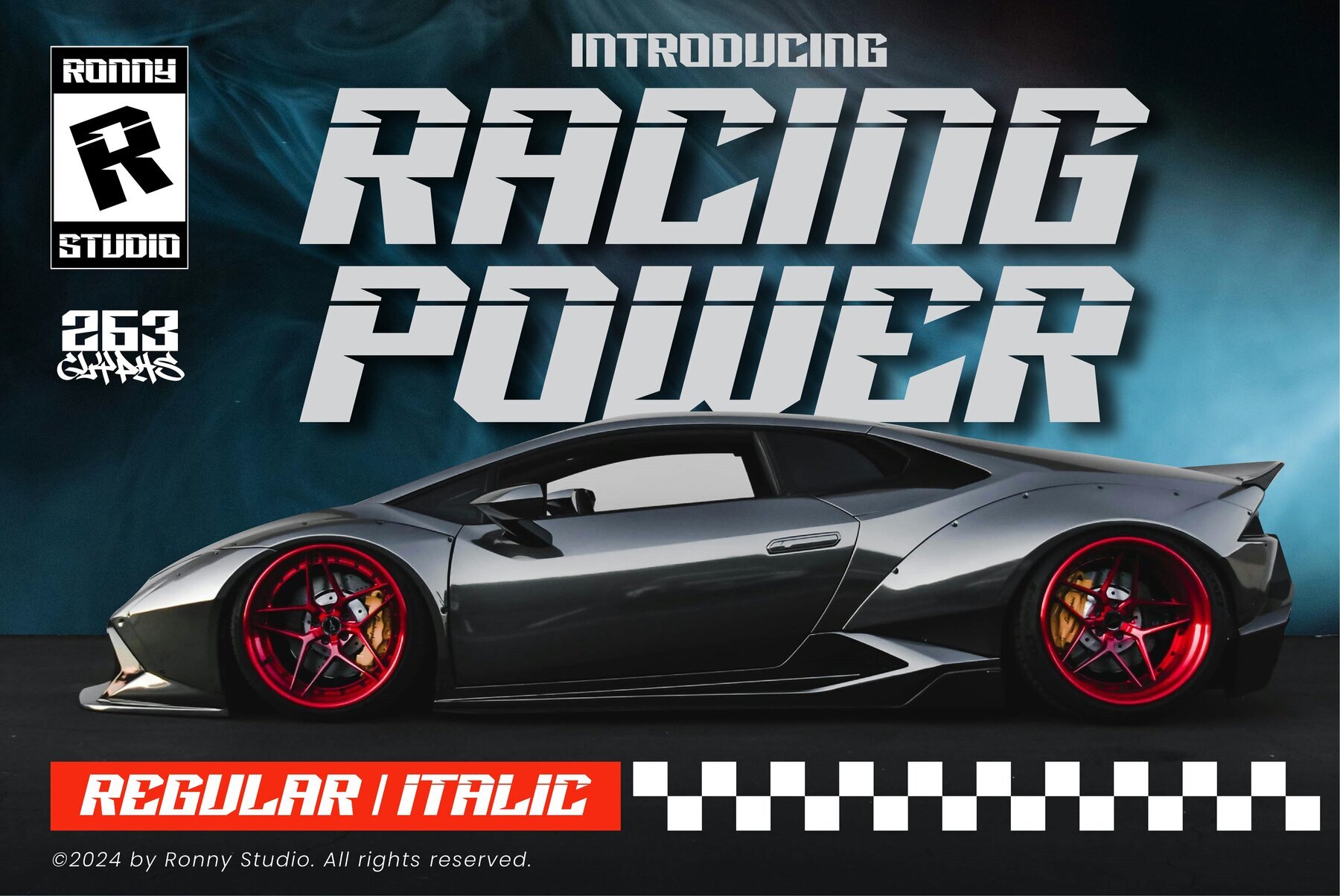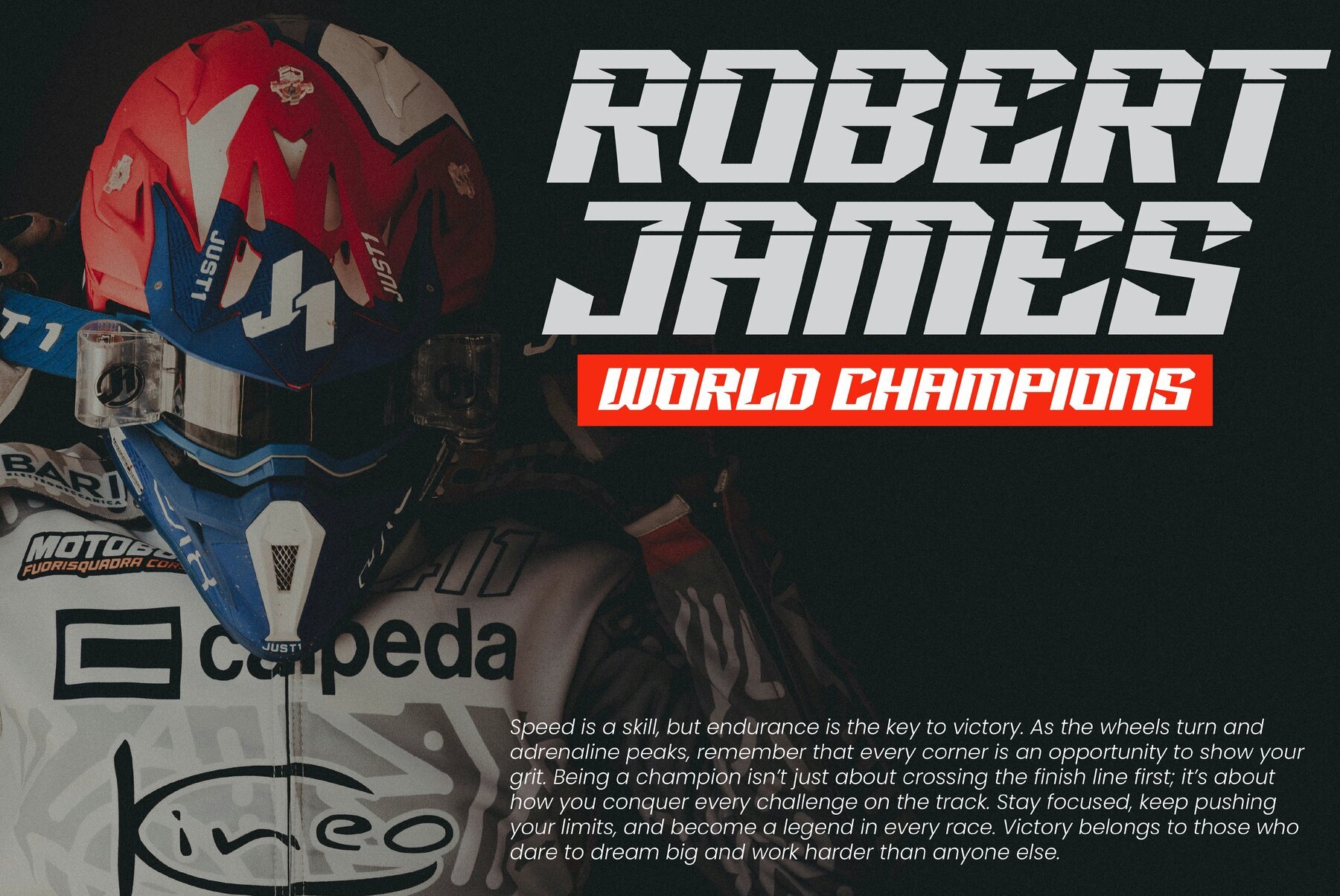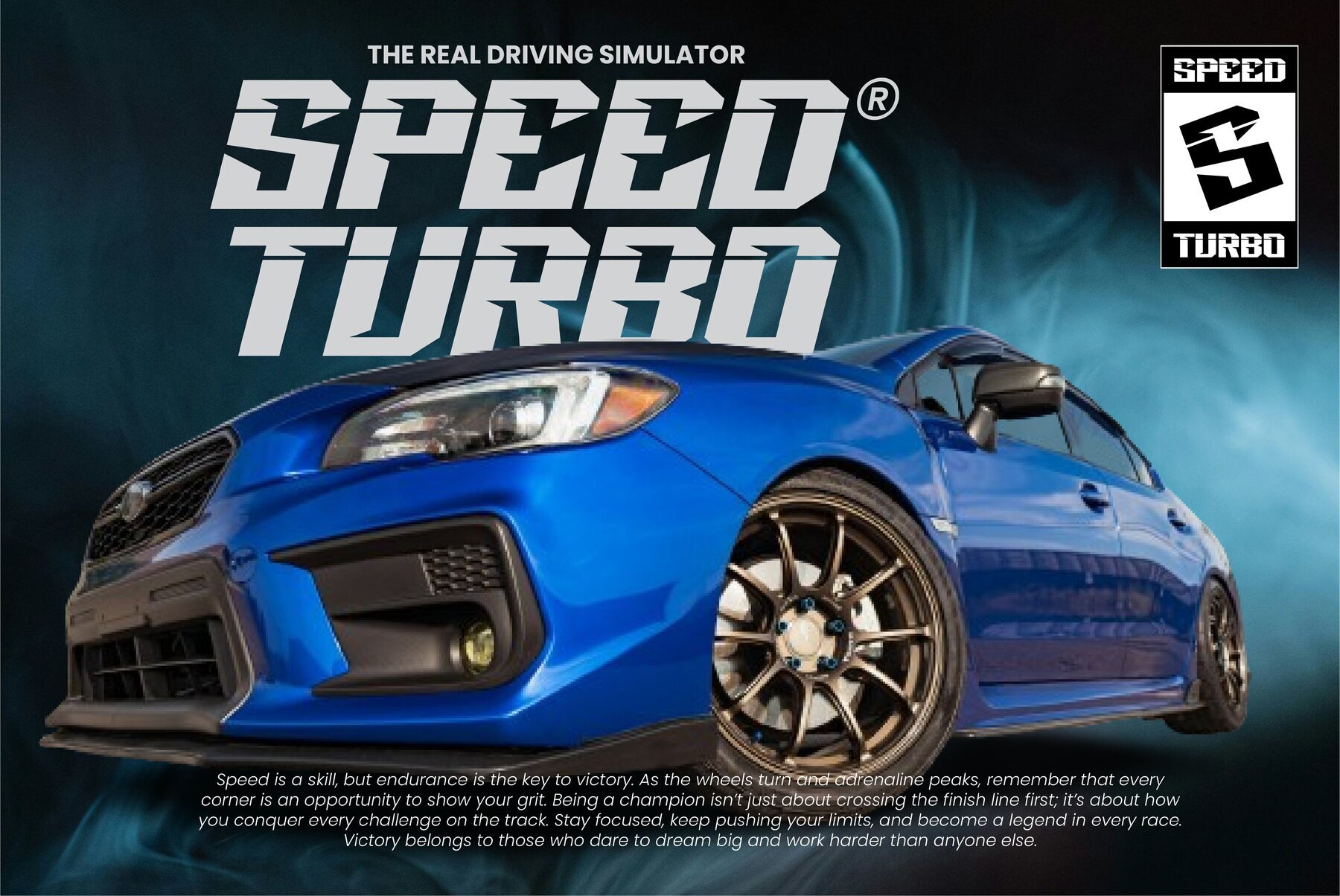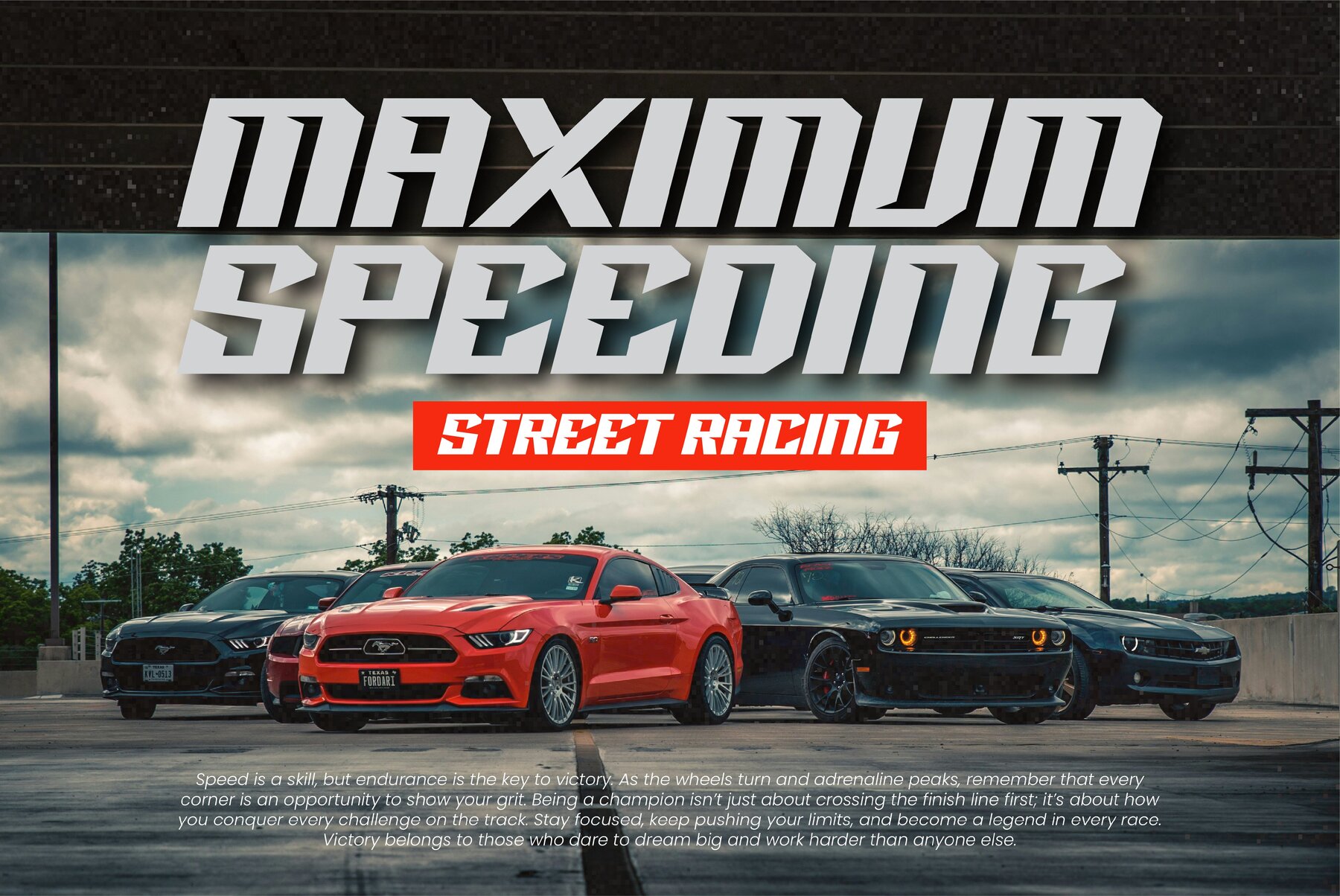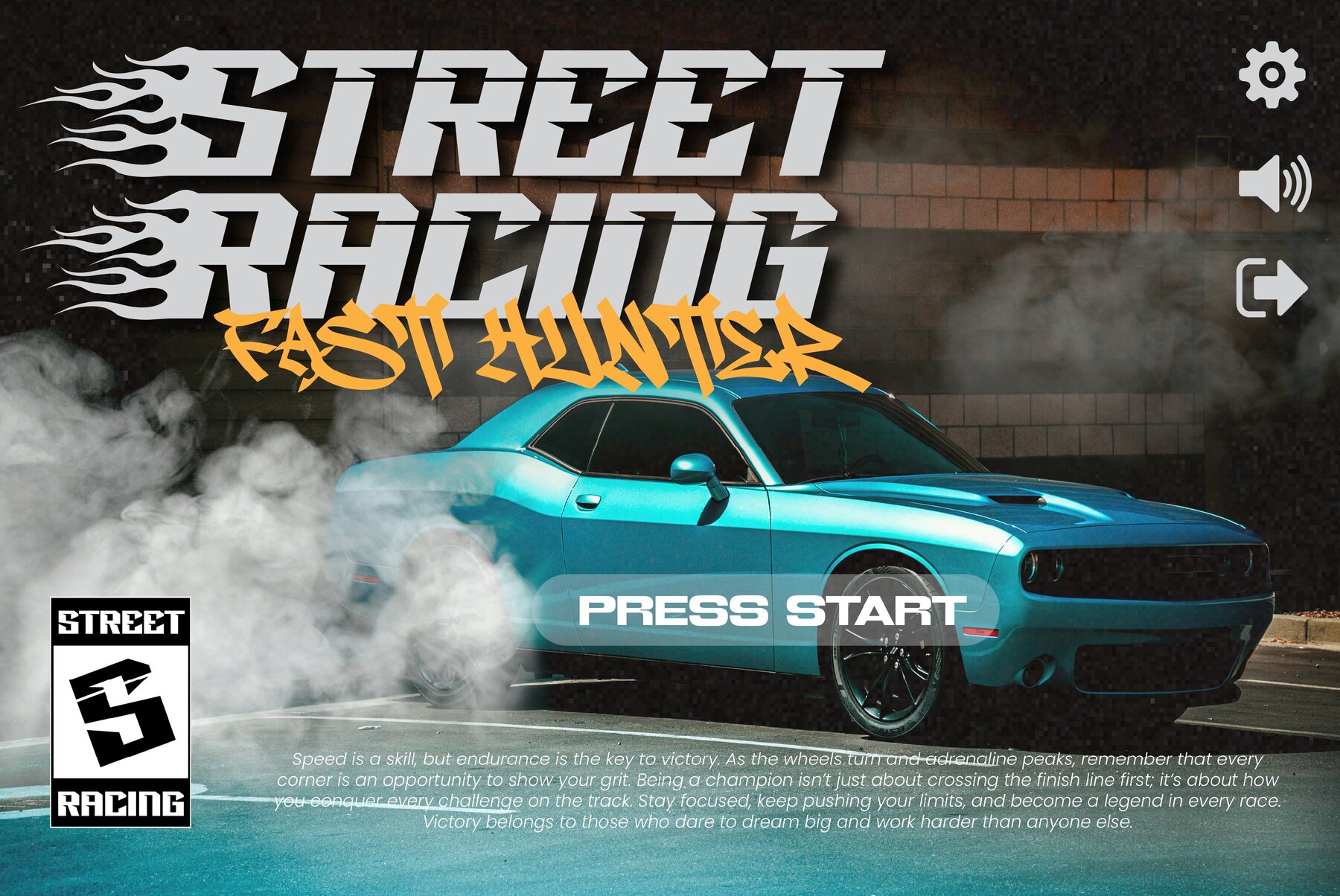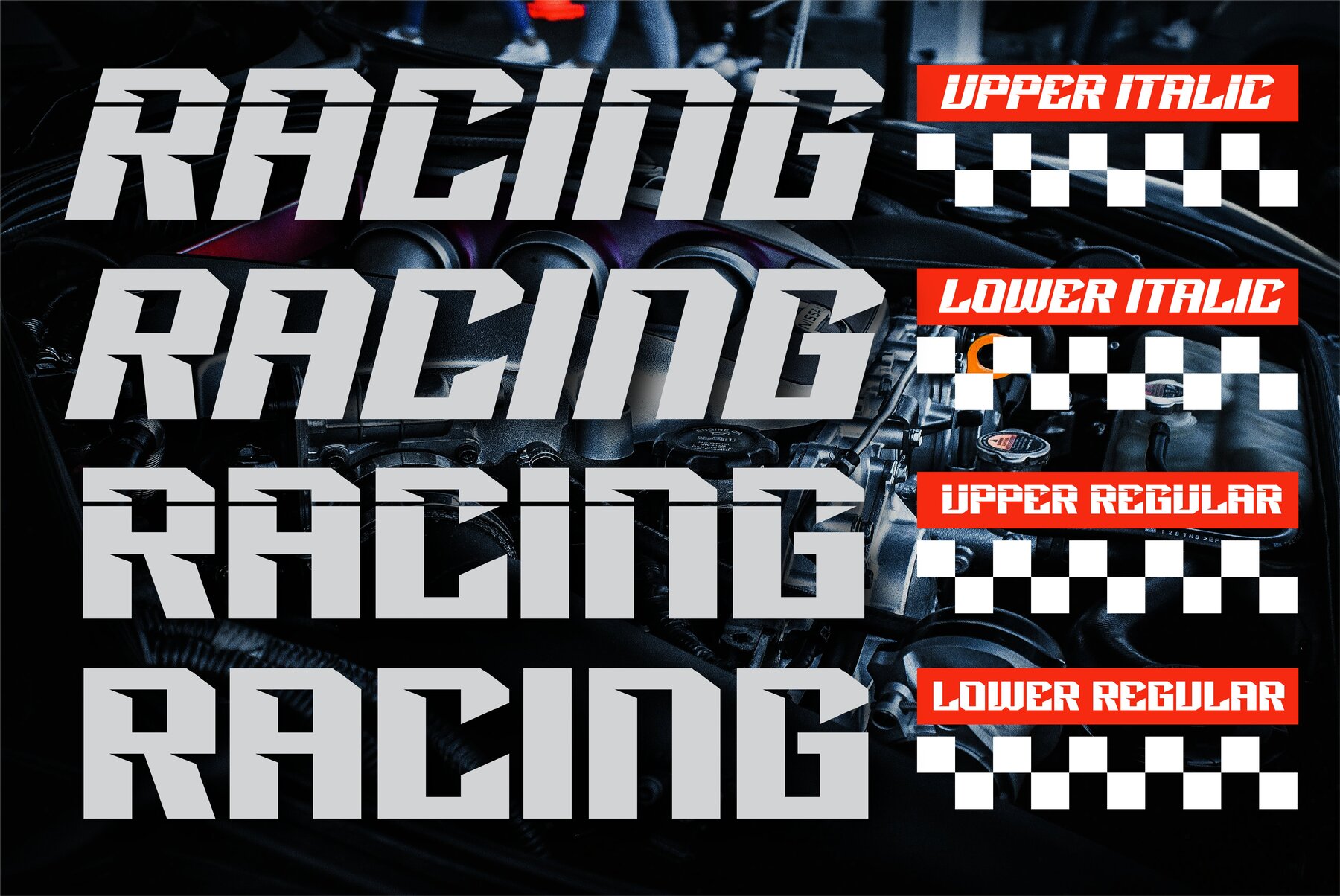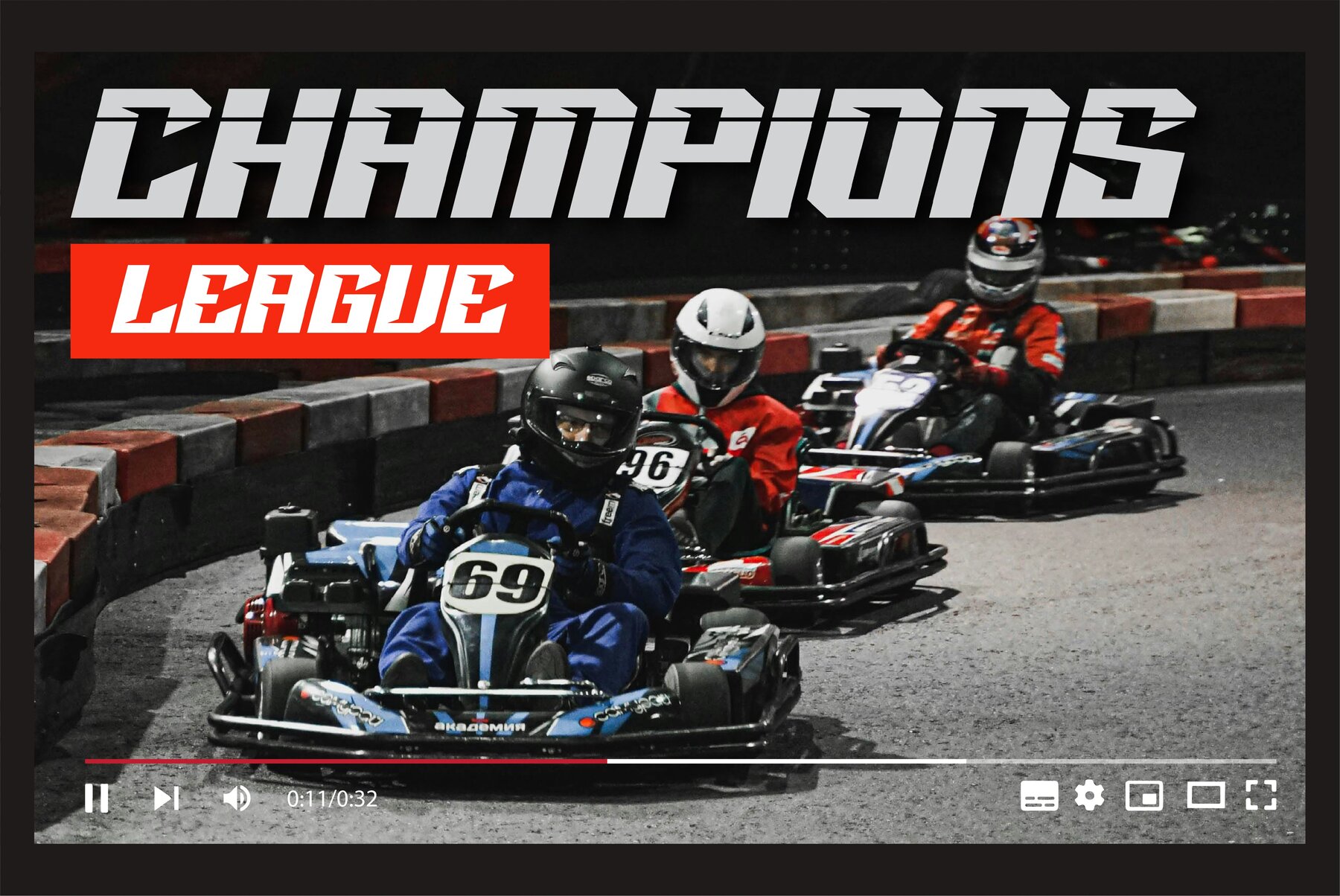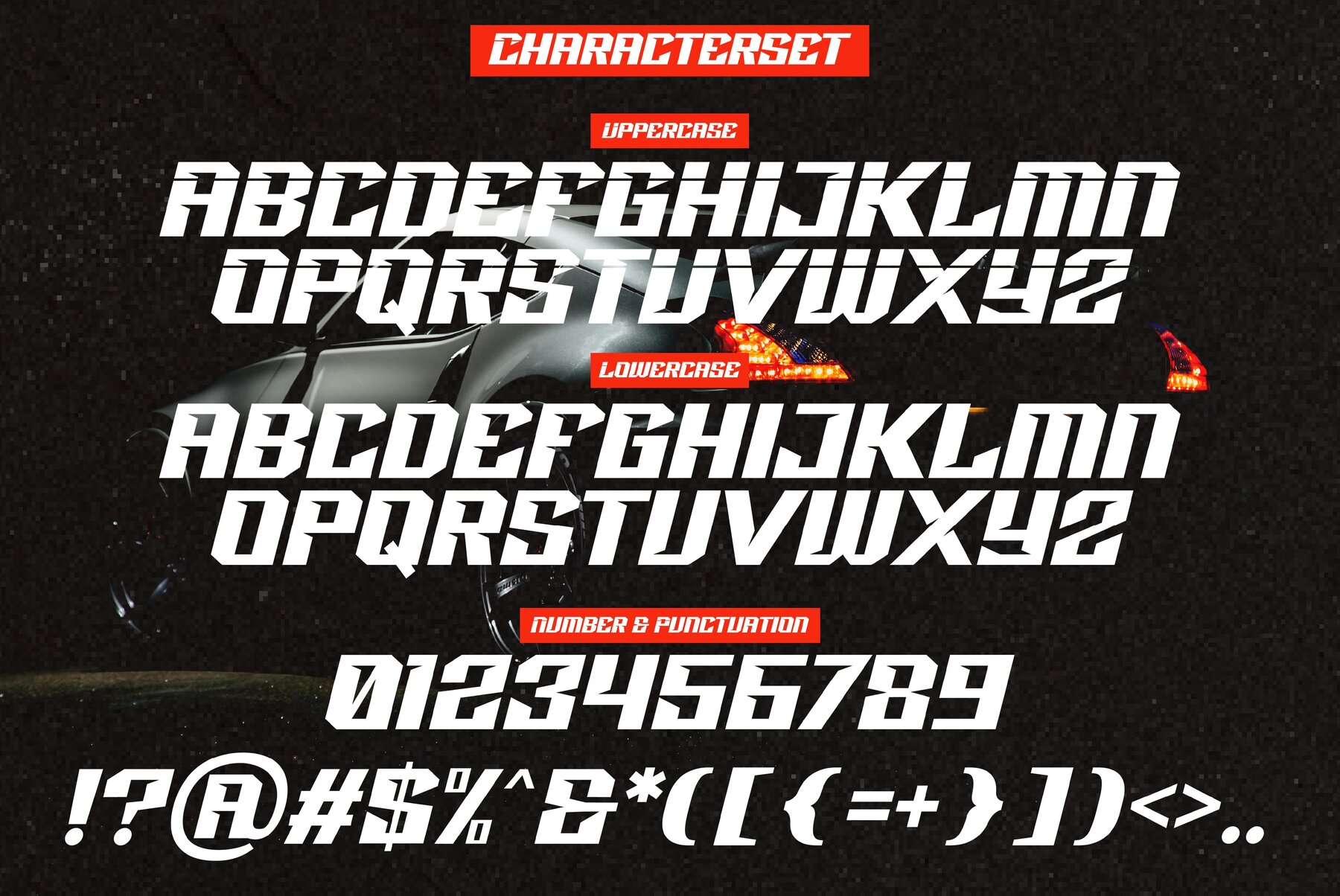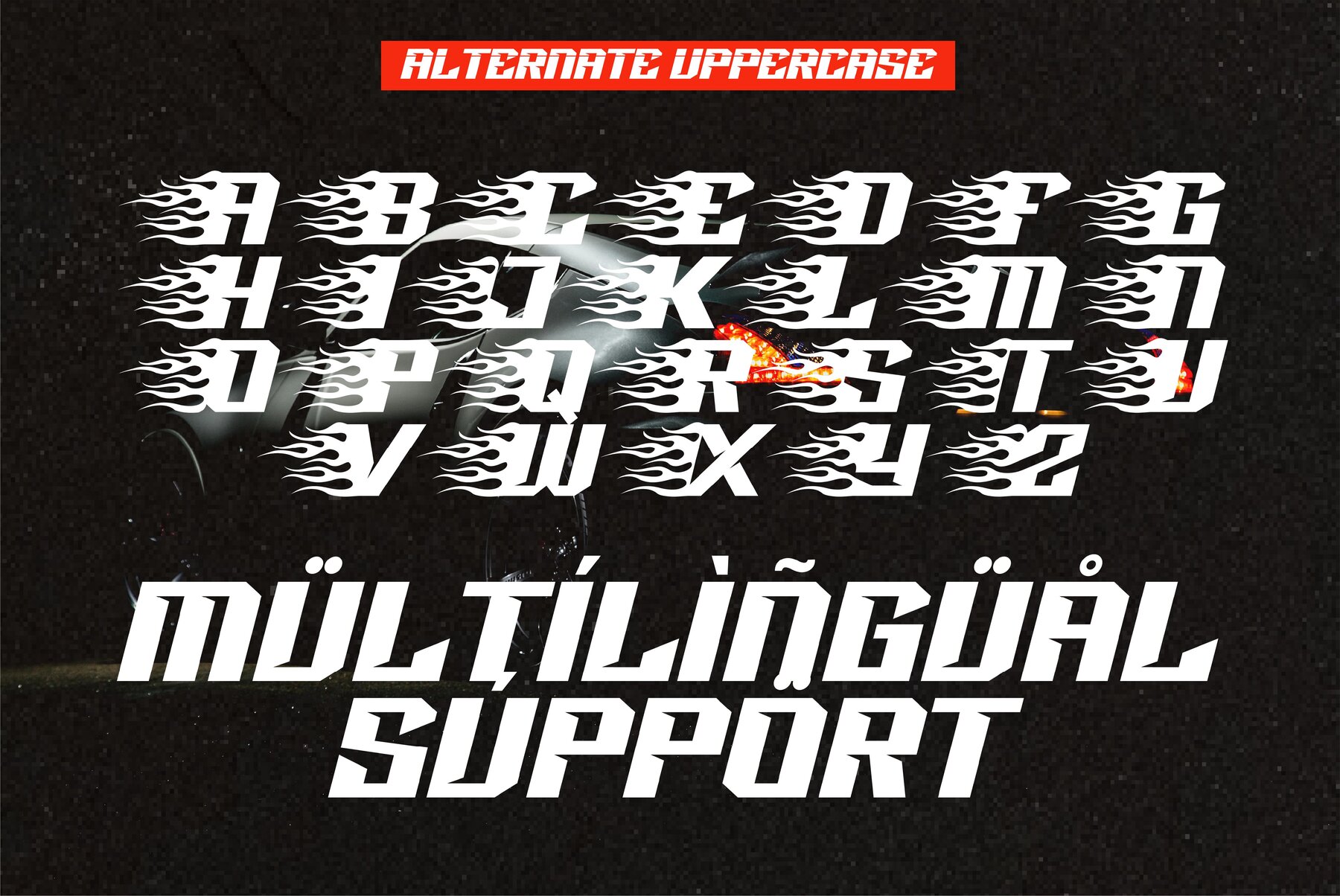
Racing Power Font
Racing Power
Racing Power Italic
Racing Power is a robust all-caps racing display font known for its thick body and high contrast, creating a striking and modern aesthetic. When combined with contrasting design elements, it exudes a clean and sophisticated appearance. Whether you're designing promotional materials or seeking a unique touch for a project, this typeface seamlessly complements a range of creative endeavors, ensuring your designs stand out with clarity and style.
Ideal for creating elegant logos, engaging branding materials, captivating book covers, and stylish magazine layouts, this font is versatile and impactful. Additionally, it works perfectly as a text overlay on various backgrounds, delivering a chic and professional impression. The font includes essential features such as numbers, punctuation, multilingual support, ligatures, and alternates, all PUA encoded for ease of use, making it a comprehensive choice for any designer's toolkit.